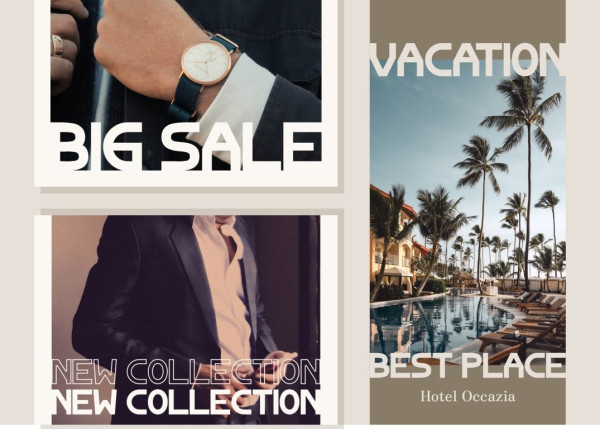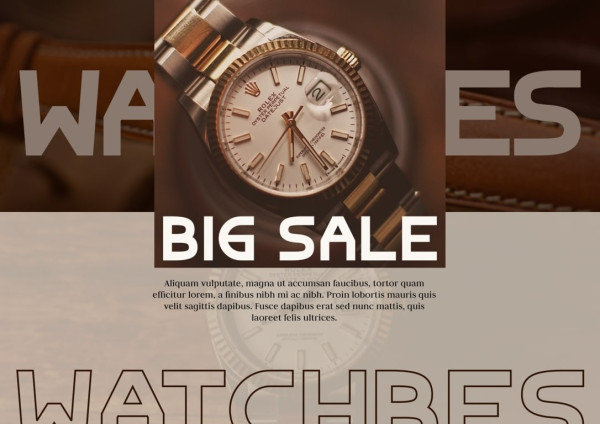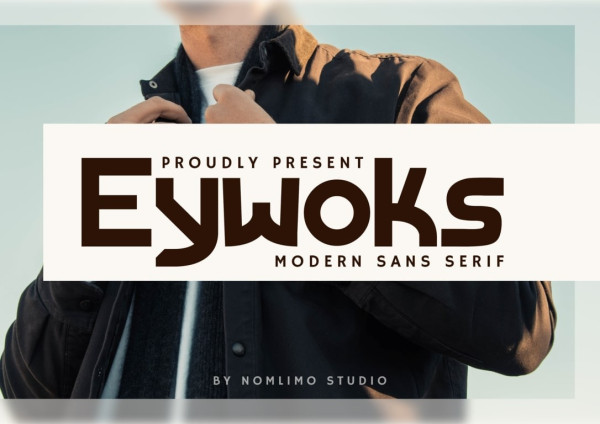
Eywoks Font
Eywoks Font, a typeface that combines strong capitals with a smooth and open lowercase, making it versatile for a wide range of applications. Eywoks Sans Serif Font is effective in various design contexts, allowing you to create impactful visuals. Whether you’re working on branding, editorial layouts, packaging, or any other creative project, this font offers a perfect balance of strength and elegance. Explore the possibilities of Eywoks Sans Serif Font as it adds a touch of sophistication and visual appeal to your designs. With its unique combination of classic and contemporary elements, it is sure to make a lasting impression.